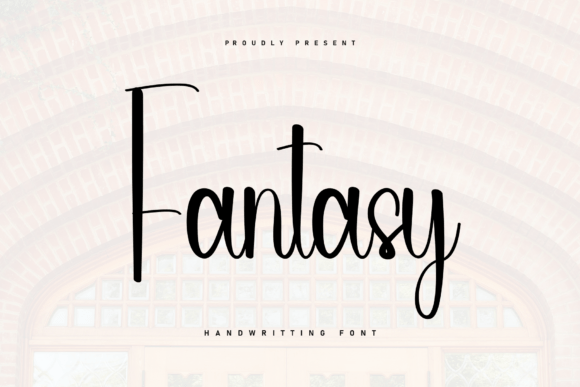
The Magic of Fantasy Font: Elevate Your Designs with Whimsical Charm
Have you ever been in the middle of a design project, and suddenly, you’re stuck on finding the perfect font? I recall a particularly frustrating experience while working on a wedding stationery set for a client. The design was almost complete, but the font just wasn’t right. It was too formal, too bland, or too overused. That’s when I stumbled upon Fantasy, a slender handwritten script font that completely transformed my design. In this article, I’ll share my journey with Fantasy, its features, and how you can make the most of this beautiful font in your designs.
A Personal Review: What I Love About Fantasy
- ✨ Natural Flow: Fantasy perfectly captures the rhythm of natural penmanship, making it feel authentic and personal.
- ✅ Versatility: This font is incredibly versatile, suitable for lifestyle branding, chic wedding stationery, inspirational social media quotes, and boutique packaging.
- 💫 Elegant and Artisanal: Fantasy adds a layer of artisanal elegance to any design, making it feel genuinely handcrafted.
While Fantasy is an amazing font, there are a few things to keep in mind:
- 🤔 Legibility at Small Sizes: Like many script fonts, Fantasy can be a bit tricky to read at very small sizes. It’s best used at larger sizes or for headlines.
- ⚠️ Limited Use in Body Text: Due to its elegant, handwritten nature, Fantasy might not be the best choice for long body text. It’s perfect for headings, titles, or short paragraphs.
The Story Behind Fantasy
Fantasy was designed with the intention of capturing the essence of natural handwriting. The designer aimed to create a font that feels personal, yet elegant enough for high-end designs. Through meticulous craftsmanship, Fantasy was brought to life, offering a unique blend of whimsy and sophistication.
| What makes Fantasy suitable for wedding stationery? | Fantasy’s elegant and whimsical nature makes it perfect for wedding stationery, adding a personal and sophisticated touch to invitations, save-the-dates, and more. |
| Is Fantasy available in different weights or styles? | Fantasy comes in a single style, but its versatility and range of OpenType features allow for a lot of creative flexibility. |